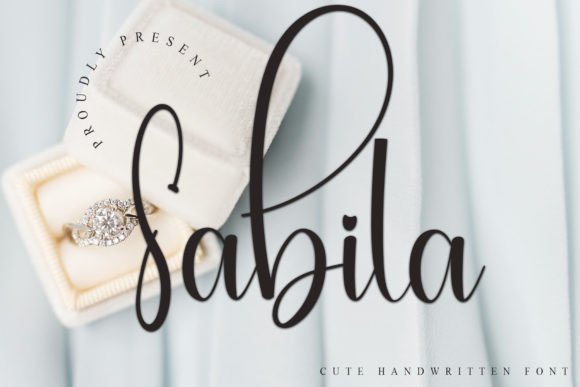
Journey into the world of captivating scripts with Sabila Font, a masterpiece crafted by Inermedia STUDIO. This exquisite handwritten font exudes a charm that will elevate your designs to new heights. Whether you're crafting flyers, wedding invitations, logos, banners, birthday cards, social media posts, or thumbnails, Sabila Font will add a touch of elegance and personality to your creations.
Sabila Font's enchanting curves and flowing strokes create a visual symphony that draws the eye and captivates the heart. Its carefully crafted characters, each a work of art in itself, seamlessly blend together to form words that dance across the page. With its playful yet sophisticated style, Sabila Font is the perfect choice for adding a touch of whimsy and charm to your designs.
Imagine the delight of your audience as they receive your wedding invitation, adorned with the graceful script of Sabila Font. The elegant curves of each letter will create an unforgettable impression, setting the tone for a truly special occasion. Or perhaps you're creating a logo for your new business. Sabila Font's timeless appeal will give your brand a distinctive and memorable identity that will stand the test of time.
With Sabila Font, the possibilities are endless. Let your imagination soar as you explore the myriad ways to incorporate this enchanting script into your designs. Its versatility knows no bounds, making it the perfect choice for a wide range of projects.